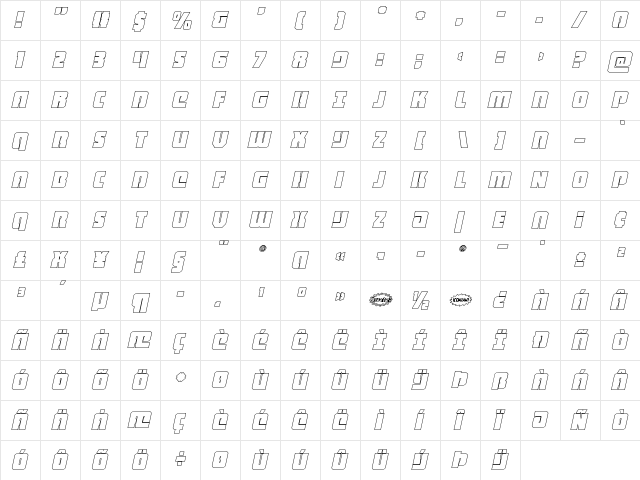
Heavy Falcon Outline Italic Outline Italic
| Style | Outline Italic |
Design Context for Heavy Falcon Outline Italic Typeface
Heavy Falcon Outline Italic brings ornamental detail and strong personality to headlines and identities, where visual impact matters more than quiet functionality. The slanted form adds forward momentum and visual energy.
Font Pairing: Pair with a clean neutral sans-serif for body copy to let Heavy Falcon Outline Italic's character lead without overwhelming the composition.
Pro Tip: Treat Heavy Falcon Outline Italic as the centrepiece of your typographic hierarchy. One strong heading set in a decorative face can carry an entire layout.